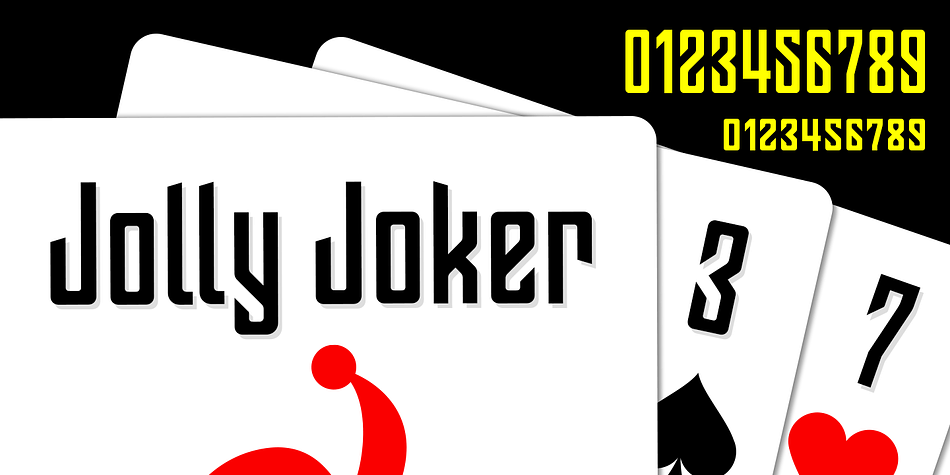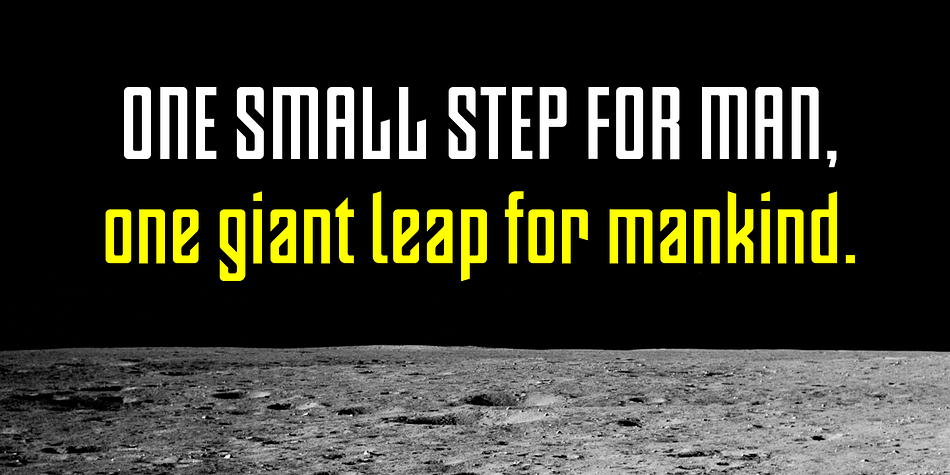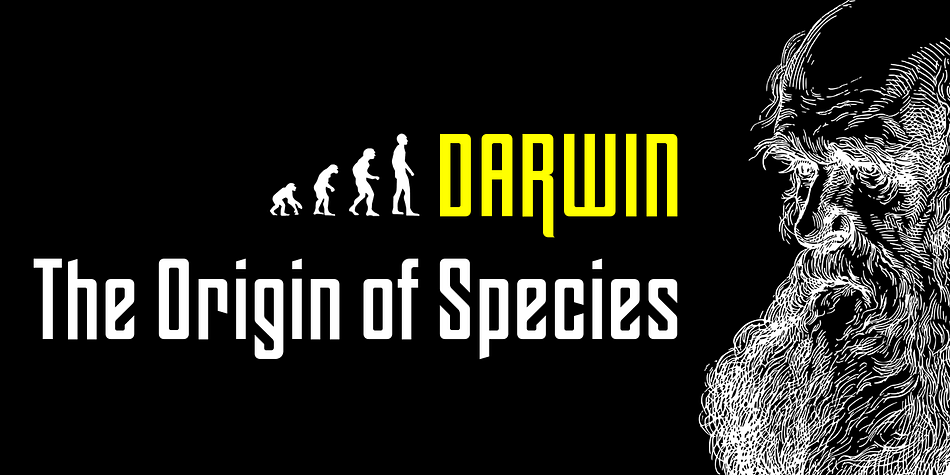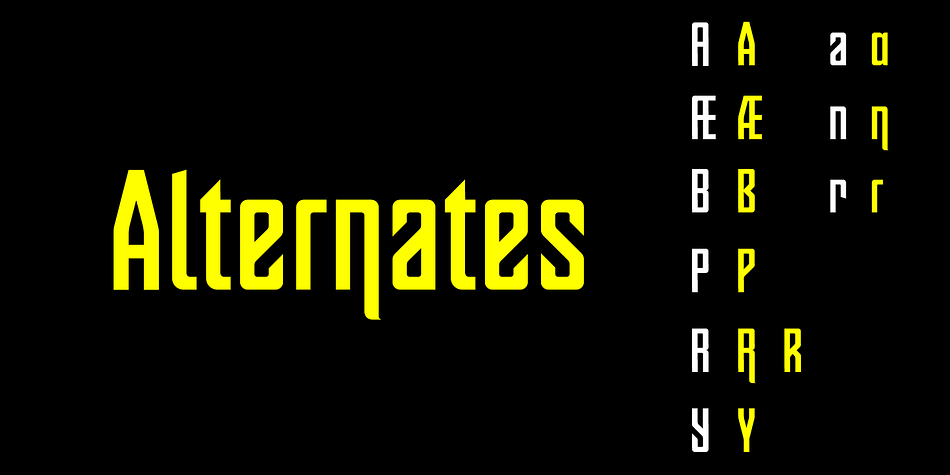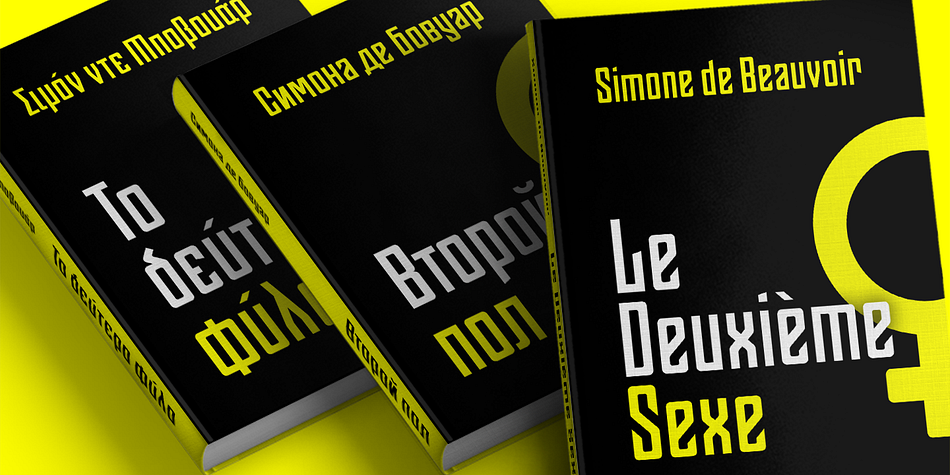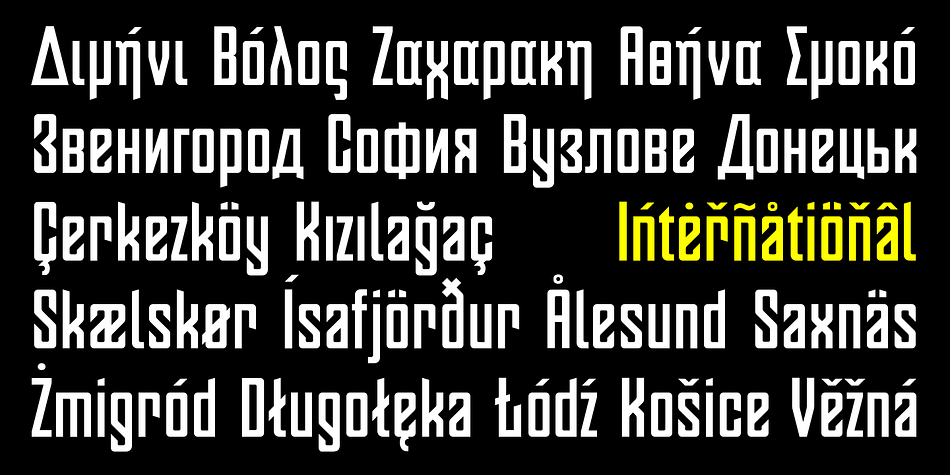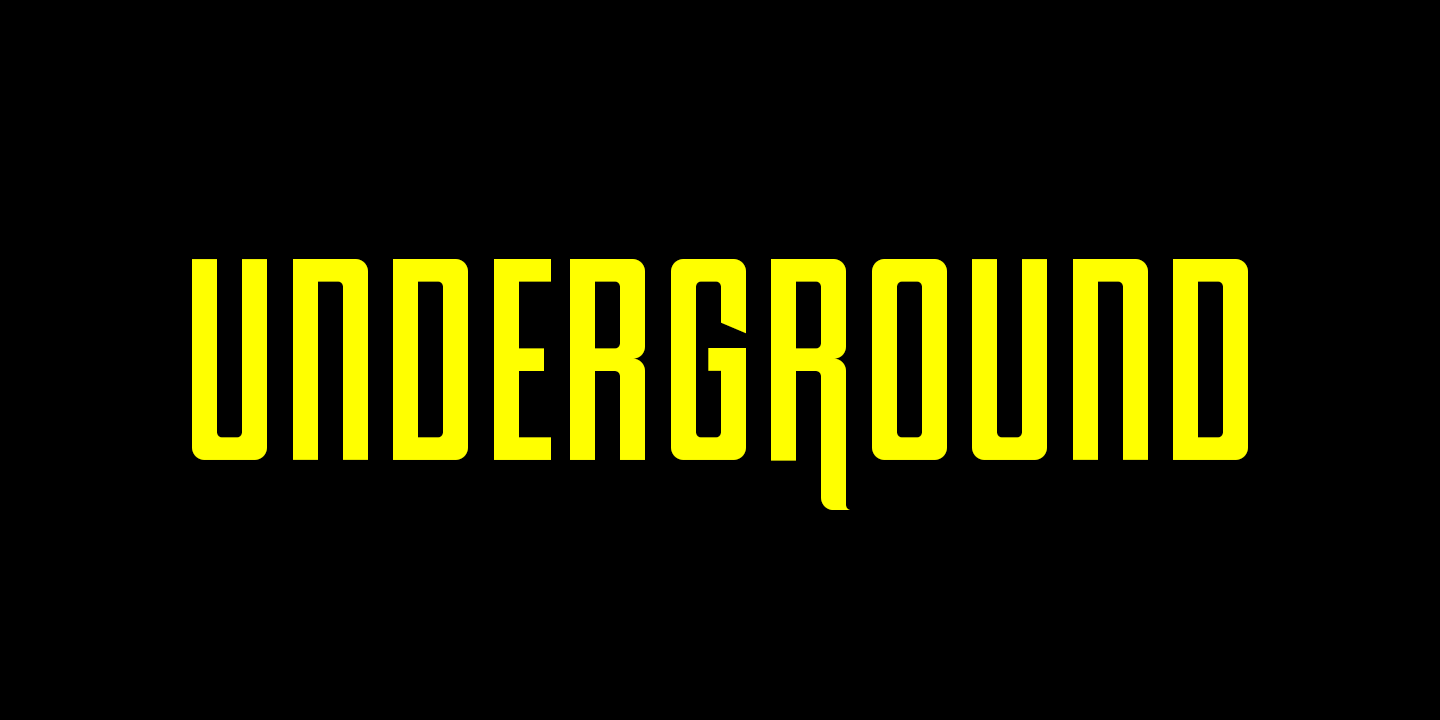
OTC Underground
OTC Underground is a display sans font family published by OTC.
OTC Underground is a geometric condensed display font, presenting a compressed letterform structure with an even stroke contrast. Available with Latin, Cyrillic and Greek characters. The font is inspired by Gustav F. Schroeder’s Othello from 1886 and the lettering on the 1967 album cover from The Velvet Underground & Nico.
Foundry OTC